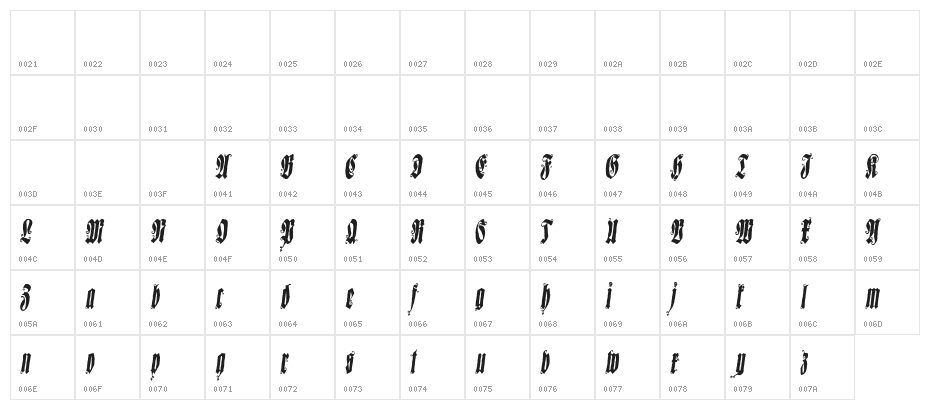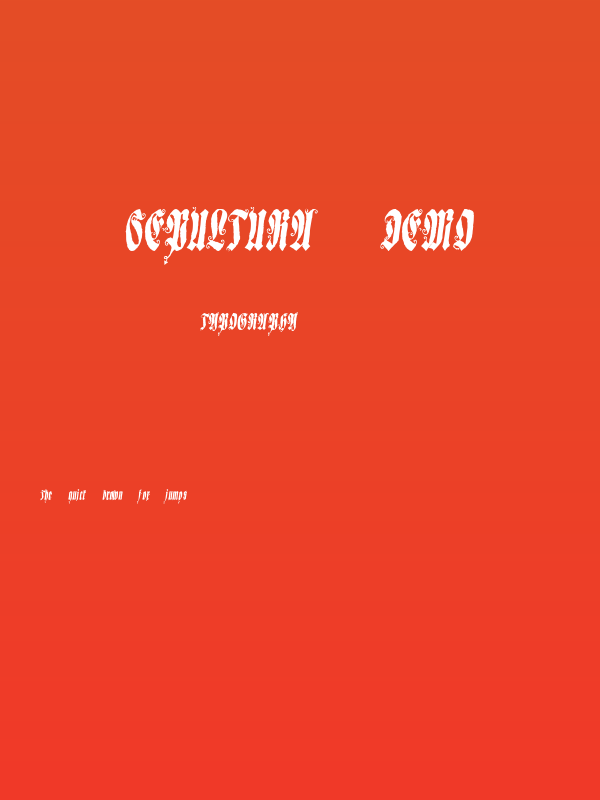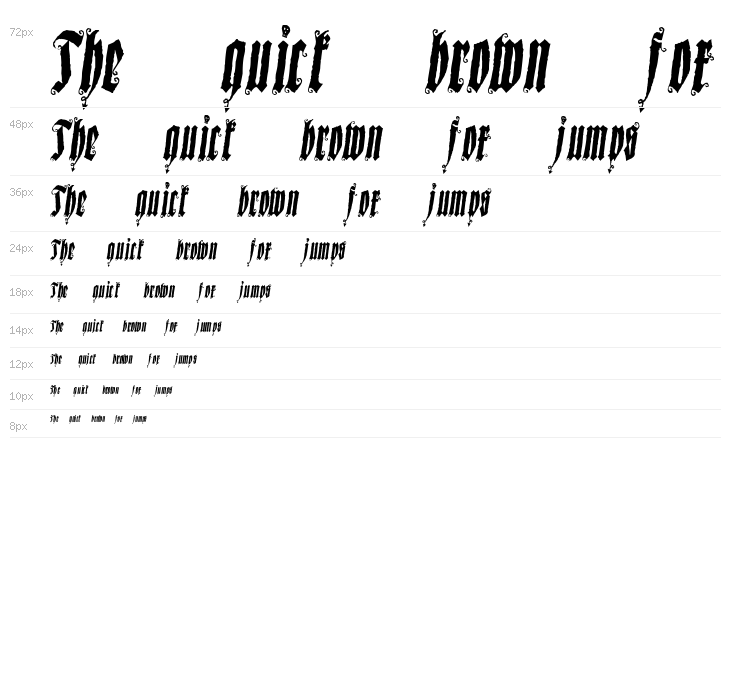
Sepultura Demo Font
Sepultura Demo Description
This font features a bold and intricate blackletter style, characterized by its ornate and decorative elements. The letters are highly stylized with elaborate flourishes and sharp, angular lines that give it a dramatic and gothic appearance. The uppercase and lowercase letters maintain a consistent design, with the uppercase being more pronounced and elaborate. The numbers and special characters follow the same ornate style, making the font cohesive and visually striking. This font is ideal for projects that require a historical or medieval aesthetic, offering a sense of grandeur and formality.
| Overall Style | Gothic, Decorative |
| Proposed Projects | Ideal for historical themed designs, gothic posters, album covers, or any project requiring a medieval aesthetic. |